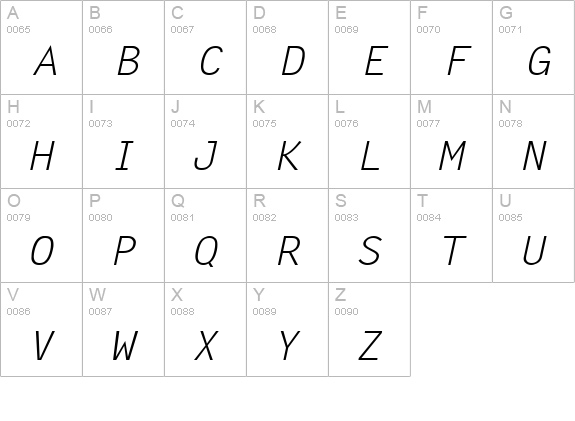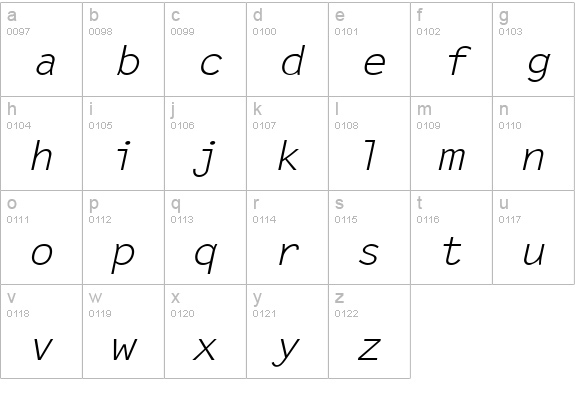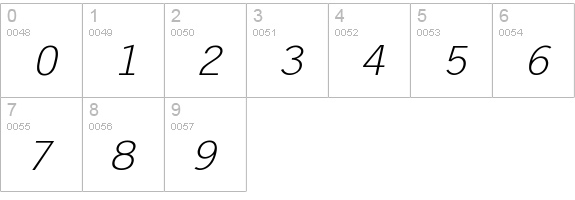
Lechter Wide Italic is a distinctive, extended-width, italic variant in the Lechter typeface family \xE2\x80\x94 well suited to design and typography projects.
Lechter Wide Italic font is a stunning typeface that effortlessly blends elegance with modernity. Its wide and slanted design adds a touch of sophistication to any project, making it perfect for both professional and creative endeavors. This font exudes a sense of confidence and versatility, making it suitable for a wide range of applications. Whether you're designing a logo, creating eye-catching headlines, or crafting stylish invitations, Lechter Wide Italic font will surely make a lasting impression. One of the best features of Lechter Wide Italic font is that it is freely available to download at FontsMarket.com. This means that you can add this exceptional typeface to your collection without any cost, making it a fantastic choice for designers on a budget or anyone who appreciates high-quality fonts without breaking the bank. With its sleek and refined appearance, Lechter Wide Italic font effortlessly captures attention and elevates the overall aesthetic of your designs. Its italicized form adds a subtle yet impactful emphasis to your text, making it ideal for conveying a sense of elegance, sophistication, or even playfulness. Whether you're designing for print or digital platforms, Lechter Wide Italic font guarantees legibility and readability, ensuring that your message is conveyed clearly and effectively. Its clean lines and well-defined letterforms make it a pleasure to work with, both in small and large sizes. With Lechter Wide Italic font, you can truly unleash your creativity and bring your designs to life. Its versatility, style, and accessibility make it an invaluable asset for designers of all levels. So why wait? Head over to FontsMarket.com and download Lechter Wide Italic font now, and let your designs shine with this exceptional typeface.